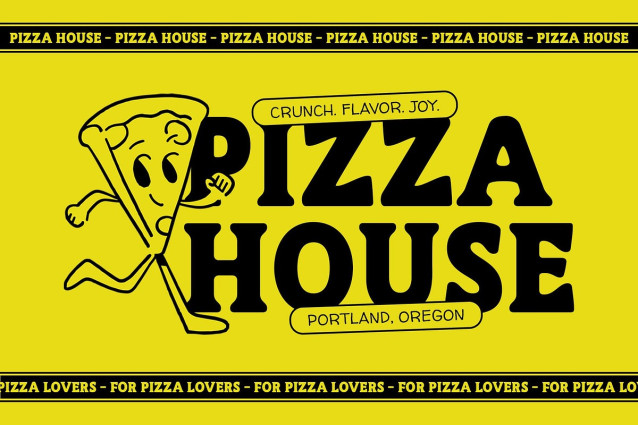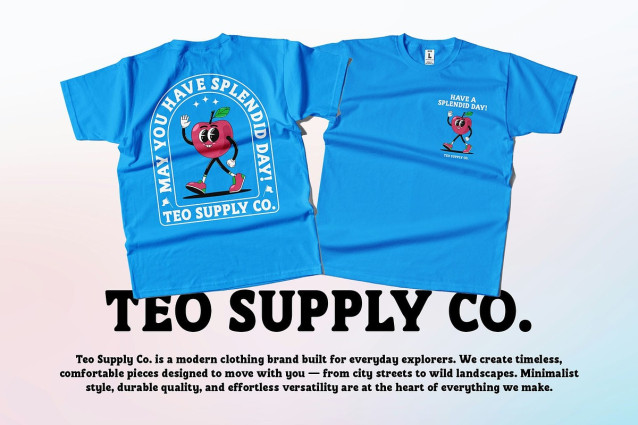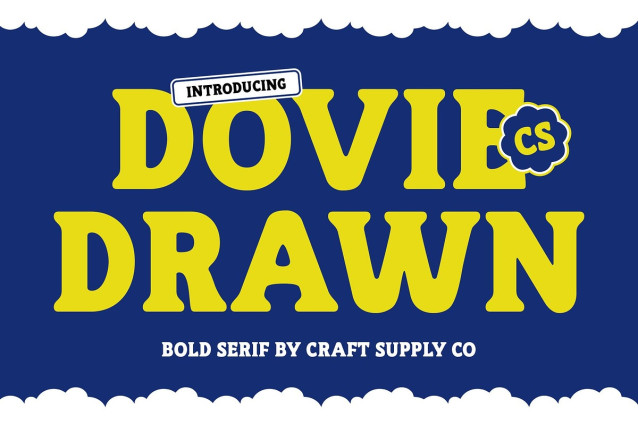
CS Dovie Drawn Font
CS Dovie Drawn is a bold serif font that brings the vibrant, energetic style of the 90s to life. Its strong letterforms and funky design evoke nostalgia, making it ideal for projects that aim to capture the bold, fun spirit of the past while staying relevant to contemporary design trends.
Hand-Drawn Effect for Dynamic Personality Layered with a unique hand-drawn effect, this font adds an artistic, dynamic touch to each character. The drawn texture introduces a sense of movement and individuality, enhancing the bold and expressive nature of the font, making it perfect for designs that want to stand out.
Perfect for Retro-Inspired Designs Whether it’s for music posters, zine covers, or creative branding projects, CS Dovie Drawn’s boldness and playful aesthetic make it an excellent choice. Its distinctive retro flair captures the essence of the 90s, bringing a nostalgic yet modern edge to any creative project.
Ideal for Expressive Branding and Visuals This drawn font is perfect for designs that require a bold, eye-catching font with a personality. Its mix of strong serifs, quirky 90s vibes, and artistic details makes it perfect for creative branding, experimental visuals, and unique editorial designs that aim to capture attention and evoke a sense of nostalgia.